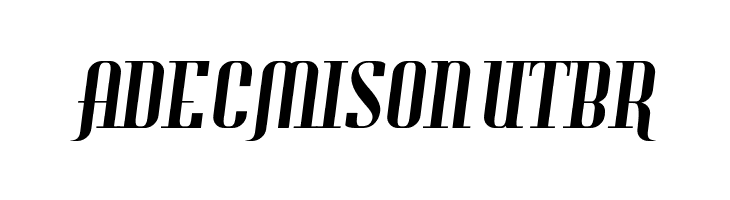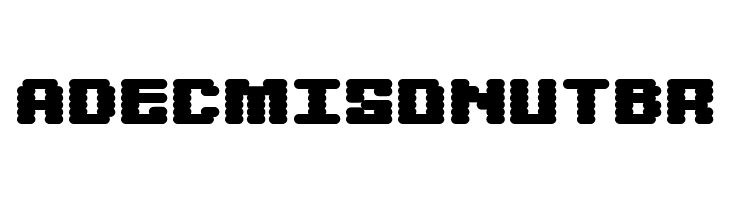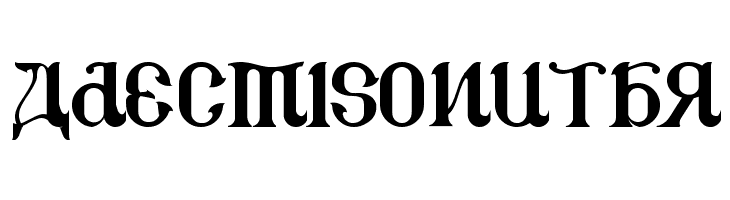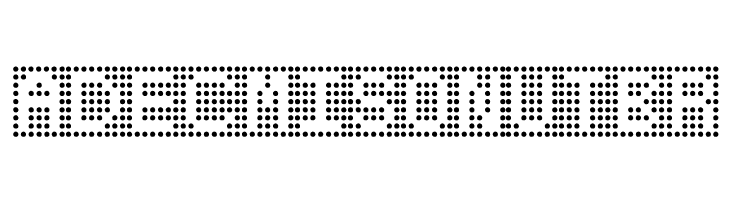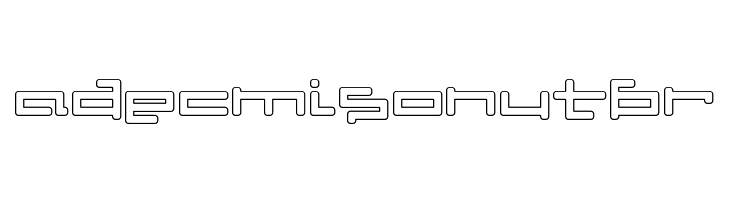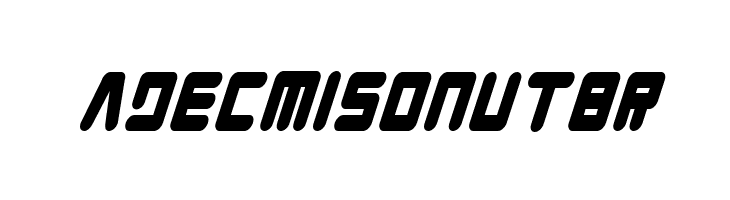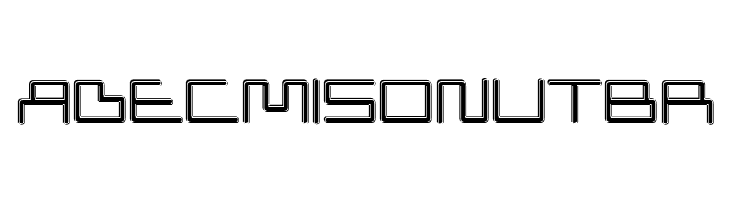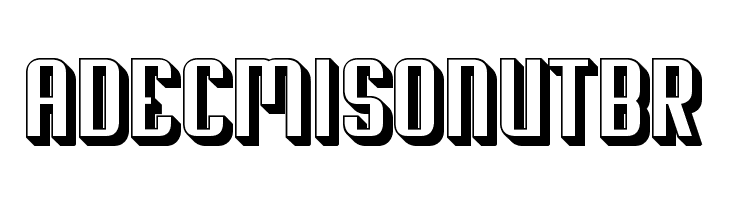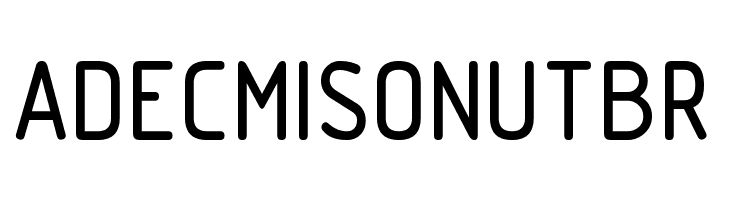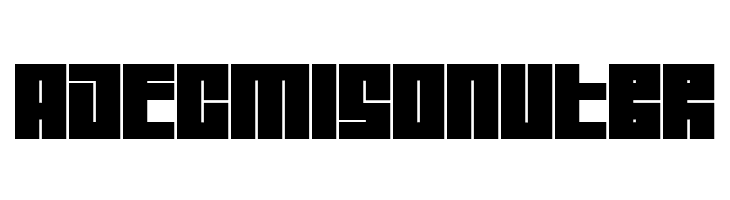
A modern, high-contrast serif font with tall, narrow letterforms and elegant serifs.
A bold, playful font with a bubble-like, rounded design.
A dot matrix font with a digital, retro aesthetic.
A modern, condensed italic font with bold, rounded characters and a futuristic style.
A futuristic, geometric outline font with a modern, tech-inspired design.
A modern, rounded sans-serif font with clean lines and uniform stroke width.
A bold, geometric font with a modern, industrial aesthetic.
A geometric, block-like outline font with a modern digital feel.
A bold, italic font with a dynamic and modern style.
A classic serif font with elegant strokes and moderate contrast.
A bold, classic serif font with strong, elegant letterforms.
A bold, geometric font with a futuristic and digital style.
A sleek, modern, and condensed font with a futuristic aesthetic.
A futuristic, italicized outline font with bold, angular letterforms.
A bold, geometric font with angular lines and a blocky appearance.
A bold, gothic-style font with sharp edges and intricate detailing.
A bold, italic font with sharp, angular strokes and a dynamic appearance.
A traditional Blackletter font with ornate, angular designs and historical elegance.
An outlined, angular blackletter-style font with sharp serifs and geometric forms.